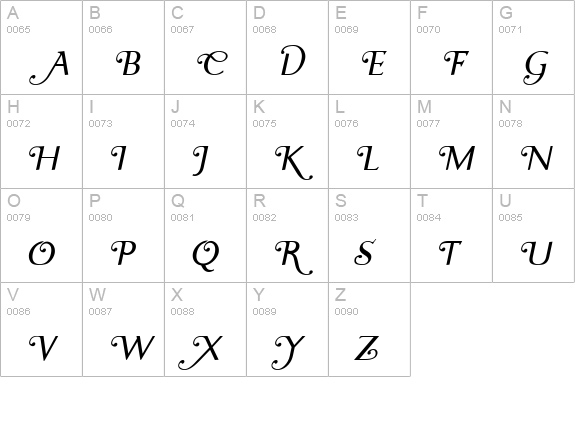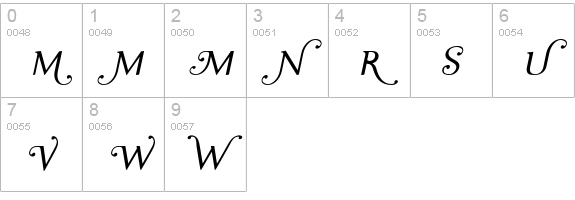
Ela Swashes SemiLight Italic PDF is a distinctive, italic variant in the Ela typeface family \xE2\x80\x94 well suited to design and typography projects.
The Ela Swashes SemiLight Italic PDF font is a delicate and elegant typeface that adds a touch of sophistication to any design. Its graceful curves and stylish swashes make it perfect for projects that require a touch of femininity and charm. This font is perfect for wedding invitations, greeting cards, and other special occasions where you want to make a statement. Best of all, the Ela Swashes SemiLight Italic PDF font is available for free download at FontsMarket.com. Simply visit the website to access this beautiful font and enhance your projects with its unique and timeless style. Whether you're a designer looking to add a special touch to your work or an individual in need of a font that stands out, the Ela Swashes SemiLight Italic PDF font is sure to impress. Download it today and elevate your designs with its graceful beauty.